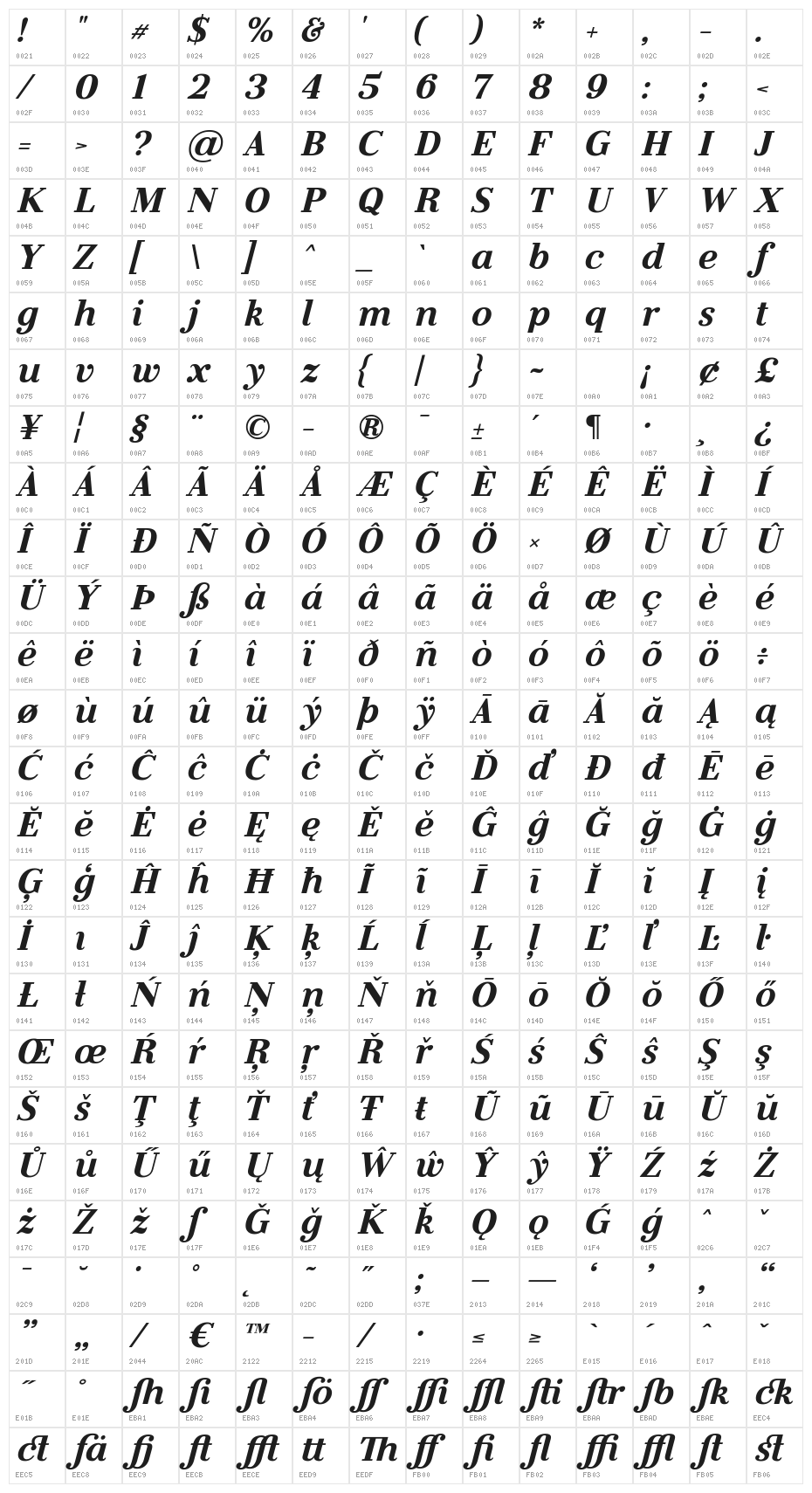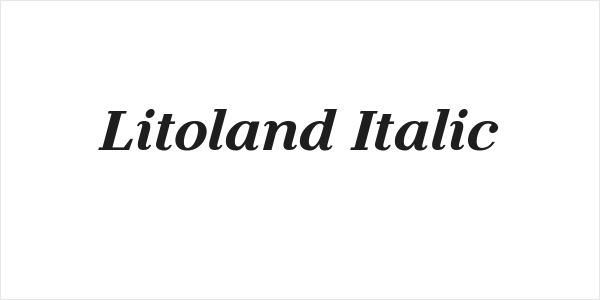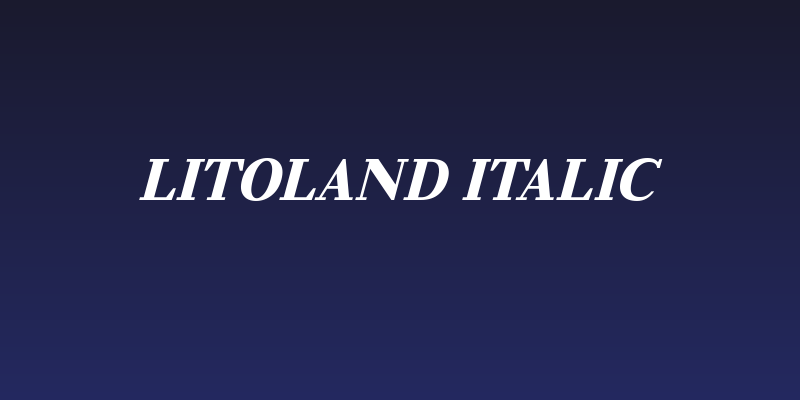
Litoland Italic Font
Litoland Italic Description
This font exudes a classic elegance with its italicized form, featuring smooth curves and a gentle slant that adds a sense of motion and sophistication. The uppercase letters are bold and commanding, while the lowercase letters maintain a consistent flow, making it versatile for various design needs. The numerals are clear and distinct, ensuring readability. Special characters are well-integrated, providing a complete set for comprehensive use. The overall design is both timeless and adaptable, suitable for projects that require a touch of refinement.
| Proposed Projects | Ideal for wedding invitations, luxury branding, editorial design, and elegant signage. |